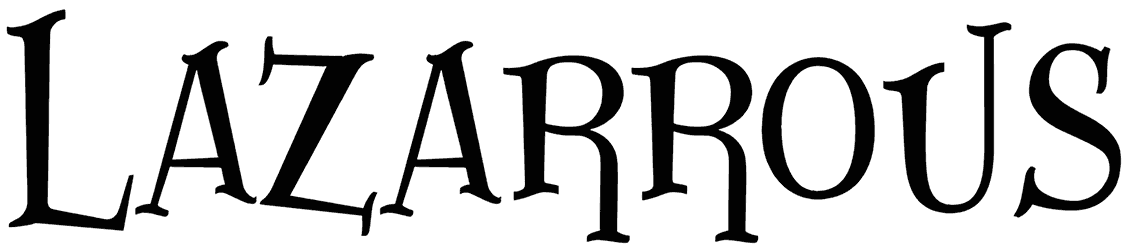
Lazarrous Font
At the first sight, the serif end lettering of this all-caps fancy font would be amazing to attract much attention. Lazarrous, this kid’s font with a fancy and pleasant setup comes up to make a charming outcome for you, so pay no attention to its lacking of numbers and try it out in many fun designs like children’s storybook titles store and shop names, and logos.